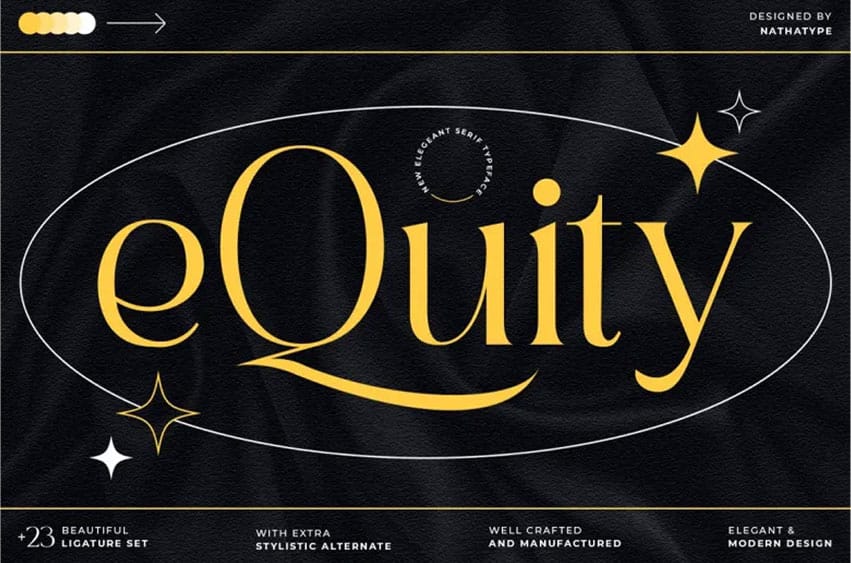
EQuity Font is a sophisticated yet genuine serif font designed specifically for modern usage. Suitable for logos, branding wedding stationery, invitations photography gift ideas packaging products also it works as watermark and quotations ensuring your Branding design does not contain whimsical logos that lack sophistication. This font produces top quality sophisticated refined Branding Designs instead.
Our fonts offer multilingual support so your brand’s message reaches a global audience. Impress clients, customers or guests with this visually captivating font!